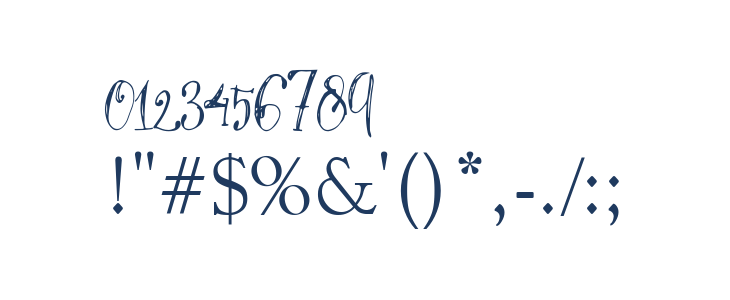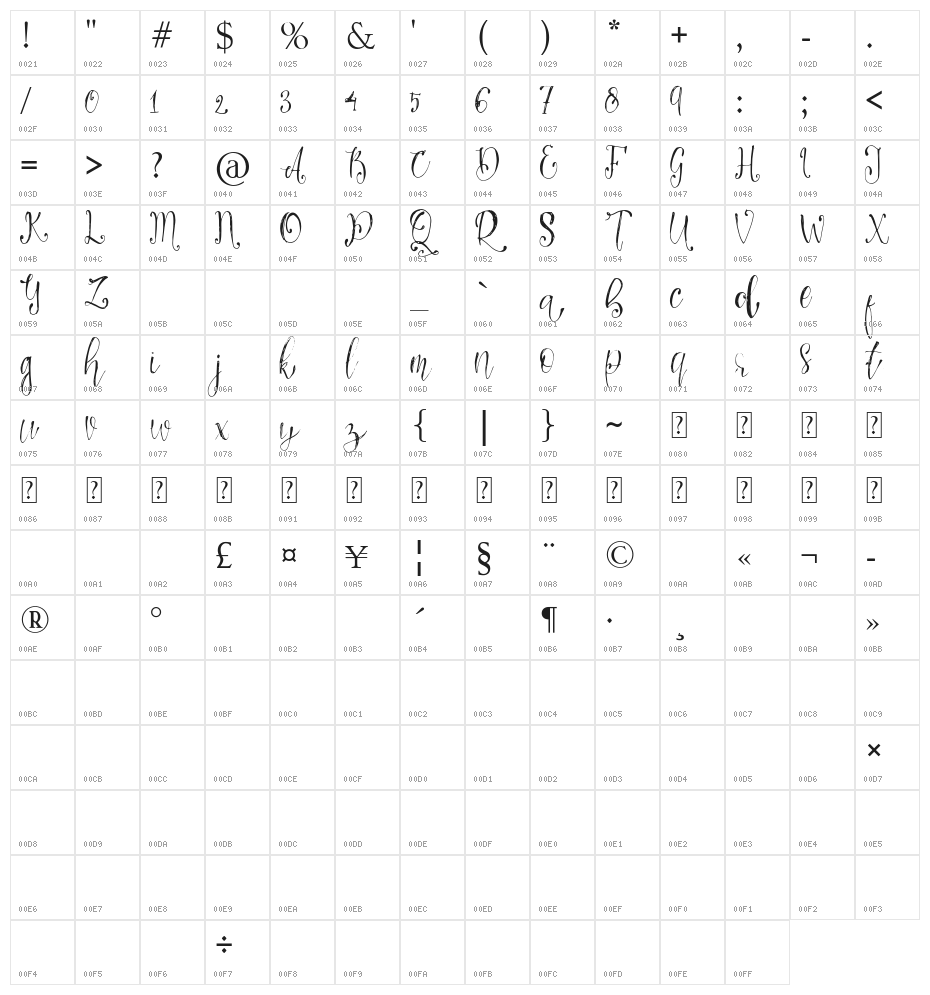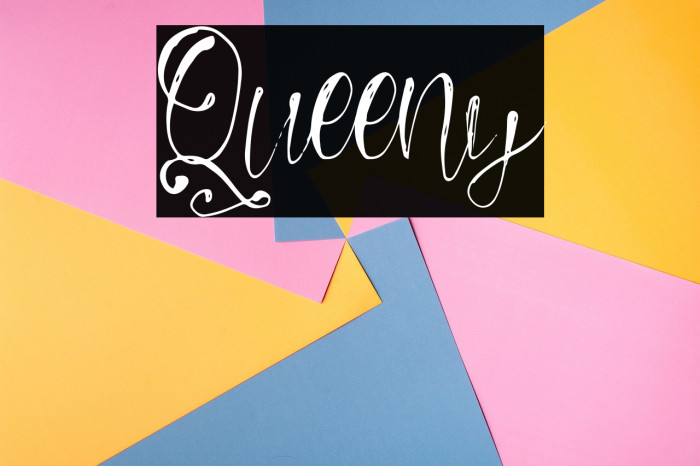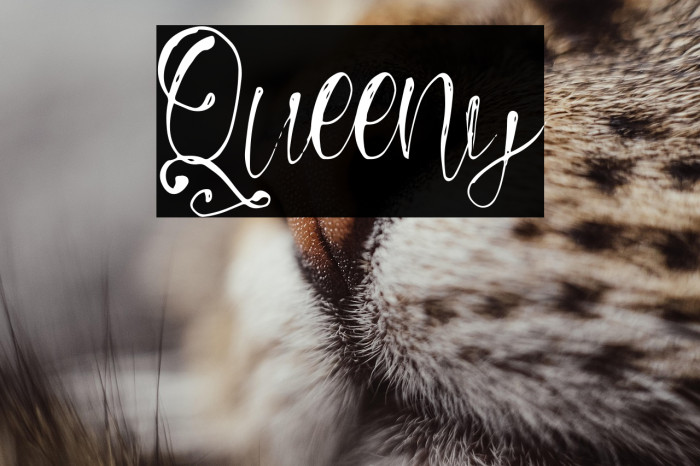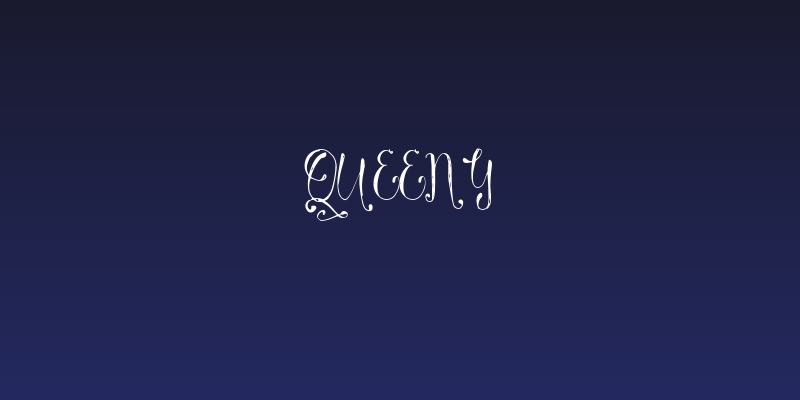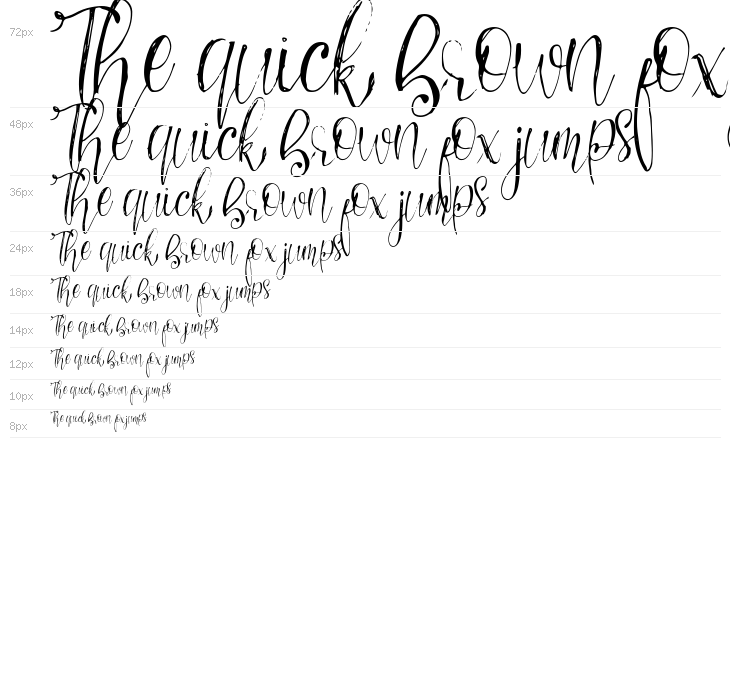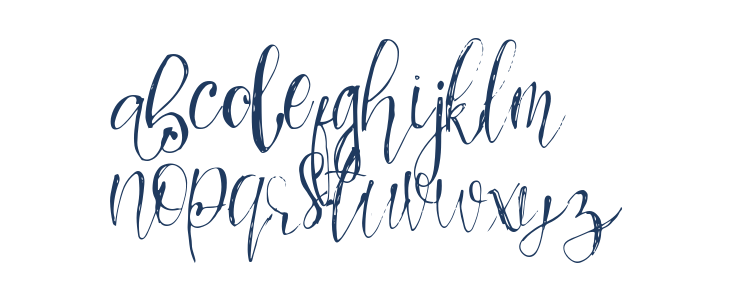
Queeny Font
Queeny Description
This font exudes elegance and sophistication with its intricate script style. The uppercase letters are adorned with delicate swirls and flourishes, giving them a regal appearance. The lowercase letters maintain a fluid and graceful form, enhancing the overall aesthetic. Numbers and special characters are crafted with the same attention to detail, ensuring consistency throughout. The strokes vary in thickness, adding a dynamic contrast that enhances readability while maintaining an artistic flair. This font is perfect for projects that require a touch of elegance and creativity.
| Proposed Projects | Ideal for wedding invitations, luxury branding, elegant packaging, and artistic posters. |